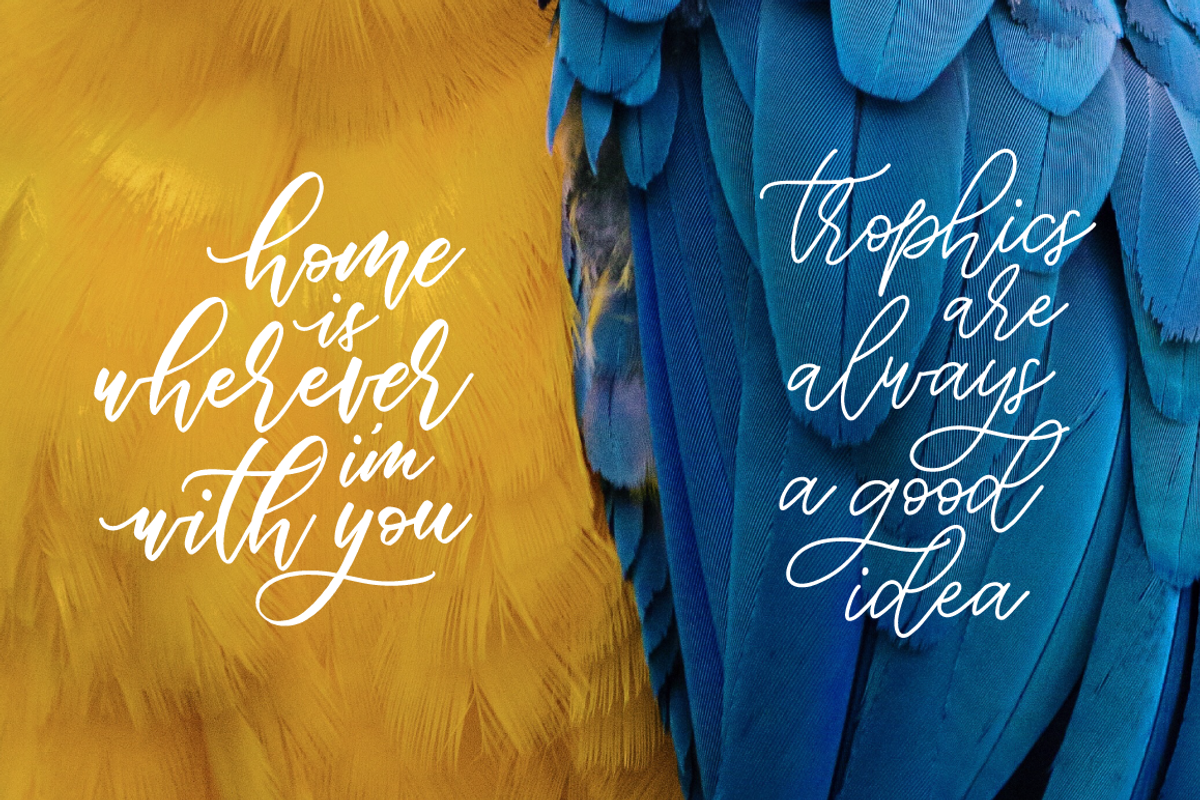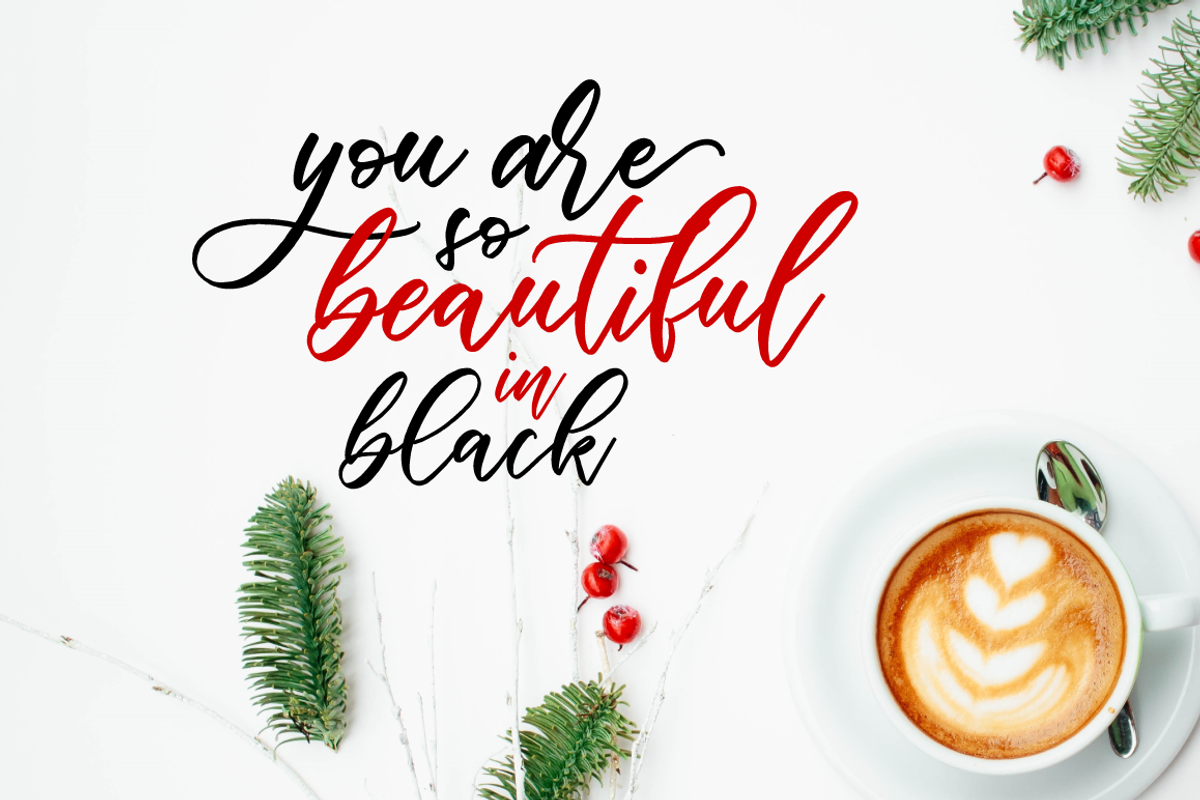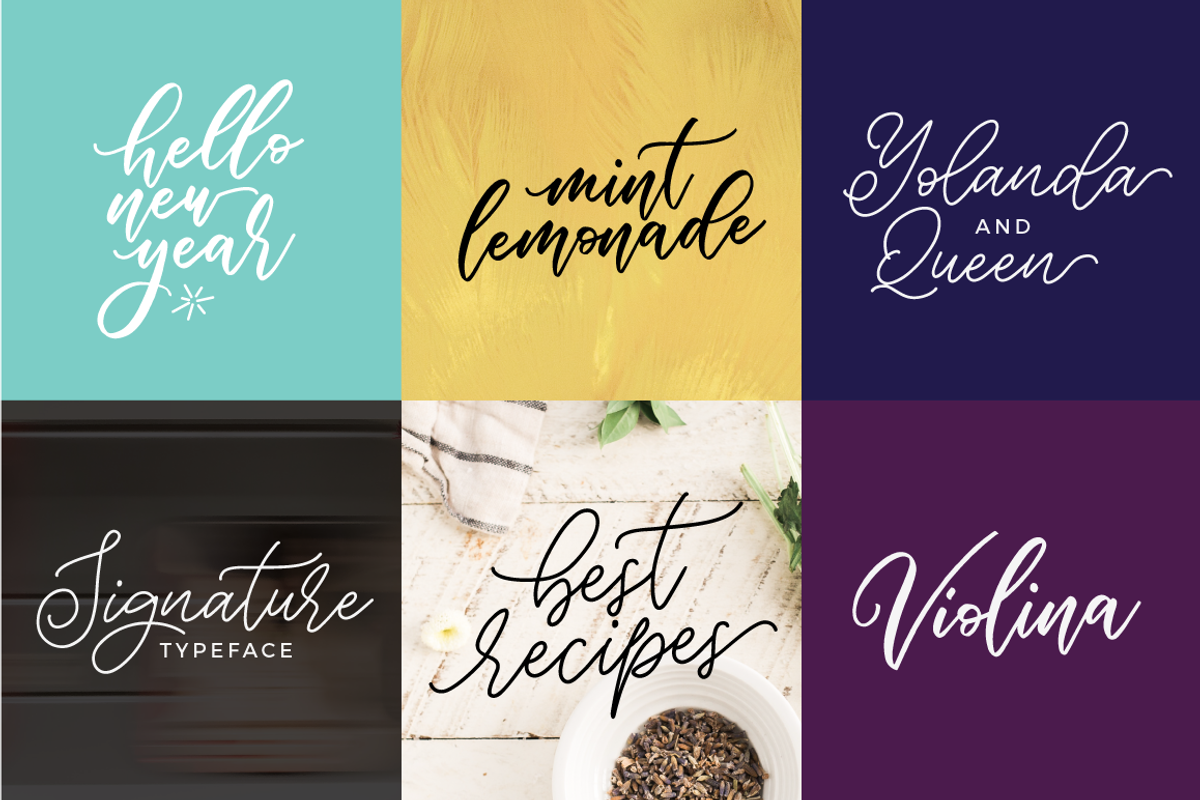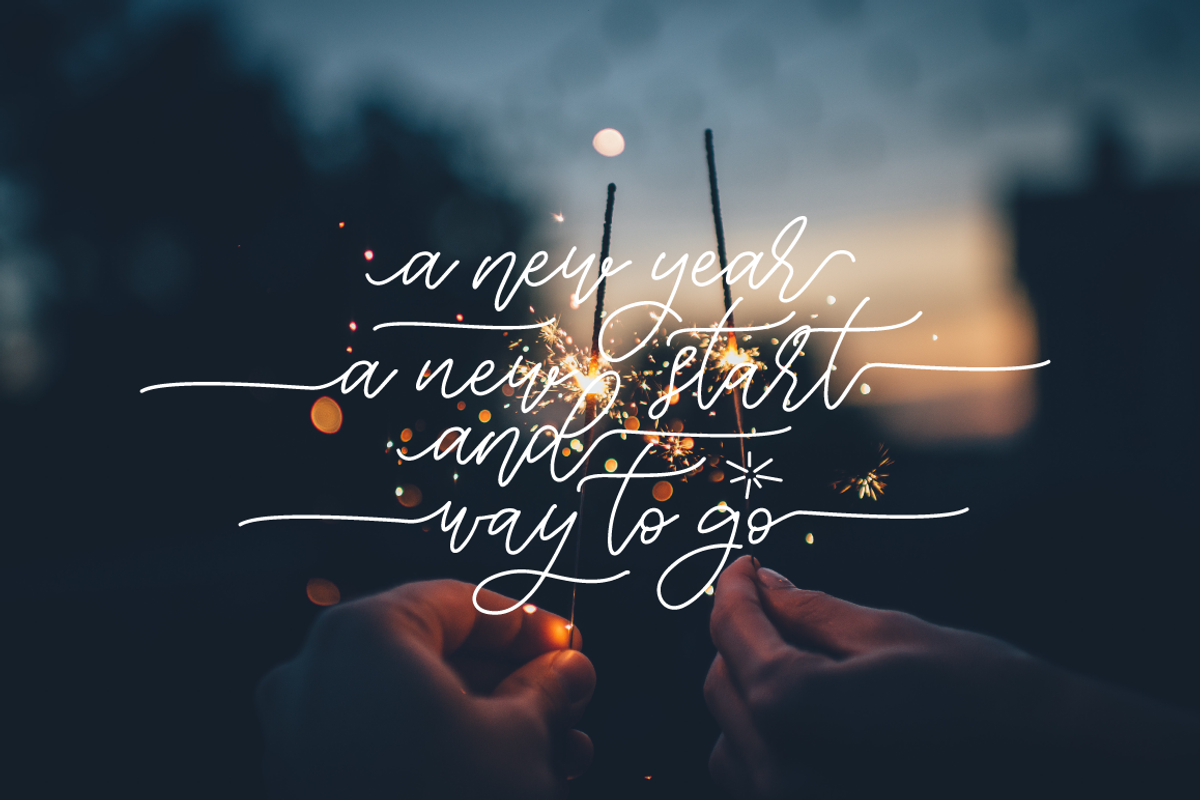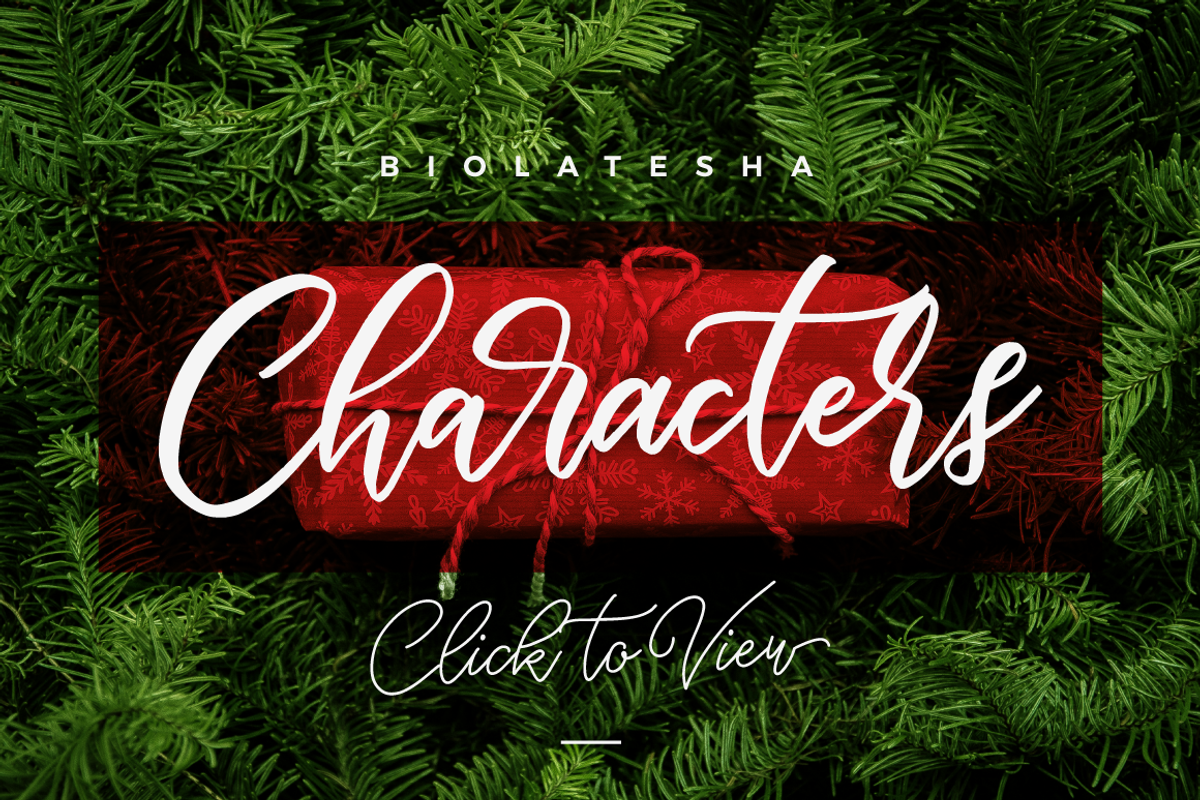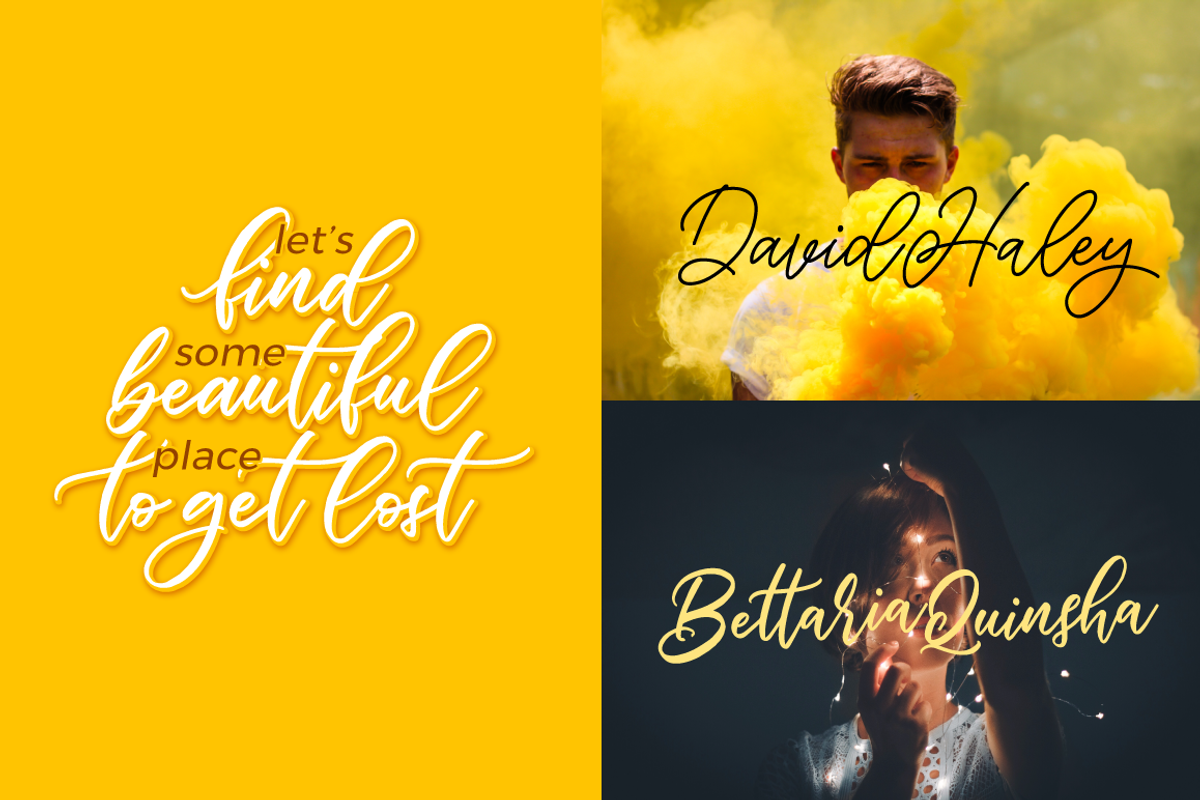
Biolatesha Calligraphy Font
Biolatesha Calligraphy Font by Typia Nesia is a font selected for branding, posters, packaging, typography.
- What's Included : Biolatesha 1 - a hand-brushed calligraphy font comes with upper and lowercase Standard Characters, Punctuation, Numerals.
- And other Glyphs variation of the OpenType features such as Stylistic Alternates, Stylistic Sets and some Ligatures.
- Alternates are available for lowercase characters.
- Biolatesha 2 - a calligraphy monoline script font comes with upper and lowercase Standard Characters, Punctuation, Numerals.
- And other Glyphs variation of the OpenType features such as Stylistic Alternates, Stylistic Sets and some Ligatures.
- Alternates are available for lowercase characters.
Why Biolatesha Calligraphy Font is worth a look
Biolatesha Calligraphy Font by Typia Nesia fits naturally into Branding, posters, packaging, typography.